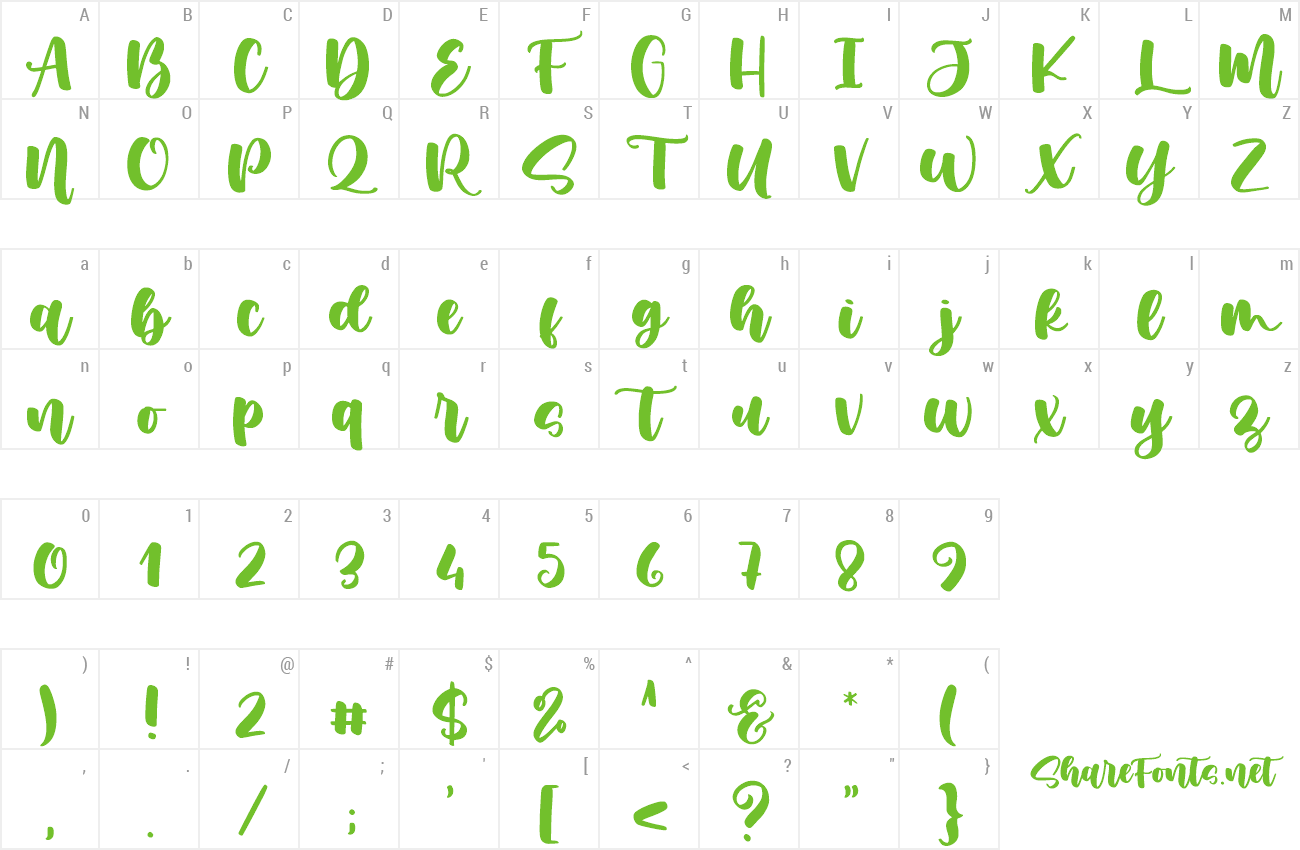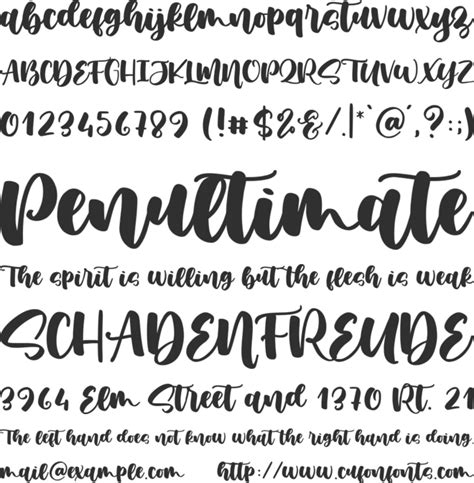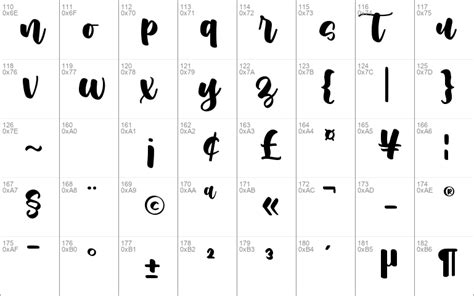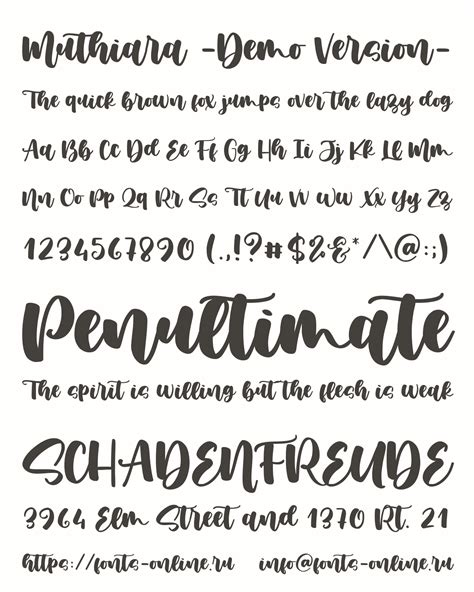
Muthiara Demo Version Font
Muthiara Demo Version Font - Web download muthiara demo version.otf, a modern calligraphy font created by abo daniel in 2016. This fonts license is free for personal use only with limited feature. This font is free for. This fonts license is free for personal use only with limited feature. If you want to use for. Votes, rated based on results identification. Web muthiara demo version font features smooth curves, swashes, and alternates that give it a distinct and stylish look.
This fonts license is free for personal use only with limited feature. This font is free for. This fonts license is free for personal use only with limited feature. Votes, rated based on results identification. Web muthiara demo version font features smooth curves, swashes, and alternates that give it a distinct and stylish look. Web download muthiara demo version.otf, a modern calligraphy font created by abo daniel in 2016. If you want to use for. If you want to use for.
This fonts license is free for personal use only with limited feature. This font is free for. If you want to use for. Votes, rated based on results identification. Web muthiara demo version font features smooth curves, swashes, and alternates that give it a distinct and stylish look. This fonts license is free for personal use only with limited feature. Web download muthiara demo version.otf, a modern calligraphy font created by abo daniel in 2016. If you want to use for.
If you want to use for. Votes, rated based on results identification. This fonts license is free for personal use only with limited feature. Web muthiara demo version font features smooth curves, swashes, and alternates that give it a distinct and stylish look. If you want to use for.
This font is free for. Web download muthiara demo version.otf, a modern calligraphy font created by abo daniel in 2016. If you want to use for. This fonts license is free for personal use only with limited feature.
This fonts license is free for personal use only with limited feature. Votes, rated based on results identification. Web download muthiara demo version.otf, a modern calligraphy font created by abo daniel in 2016. Web muthiara demo version font features smooth curves, swashes, and alternates that give it a distinct and stylish look. If you want to use for.
This font is free for. Web download muthiara demo version.otf, a modern calligraphy font created by abo daniel in 2016. If you want to use for. This fonts license is free for personal use only with limited feature. Web muthiara demo version font features smooth curves, swashes, and alternates that give it a distinct and stylish look.
This fonts license is free for personal use only with limited feature. If you want to use for. Web download muthiara demo version.otf, a modern calligraphy font created by abo daniel in 2016. Web muthiara demo version font features smooth curves, swashes, and alternates that give it a distinct and stylish look. Votes, rated based on results identification.
If you want to use for. This fonts license is free for personal use only with limited feature. Web muthiara demo version font features smooth curves, swashes, and alternates that give it a distinct and stylish look. This font is free for.
If you want to use for. This fonts license is free for personal use only with limited feature. Votes, rated based on results identification. This font is free for. Web muthiara demo version font features smooth curves, swashes, and alternates that give it a distinct and stylish look.
This font is free for. If you want to use for. This fonts license is free for personal use only with limited feature. Web muthiara demo version font features smooth curves, swashes, and alternates that give it a distinct and stylish look. Web download muthiara demo version.otf, a modern calligraphy font created by abo daniel in 2016.
Web download muthiara demo version.otf, a modern calligraphy font created by abo daniel in 2016. Web muthiara demo version font features smooth curves, swashes, and alternates that give it a distinct and stylish look. This fonts license is free for personal use only with limited feature. This fonts license is free for personal use only with limited feature.